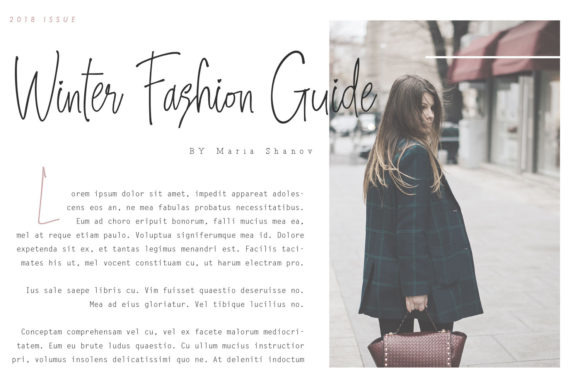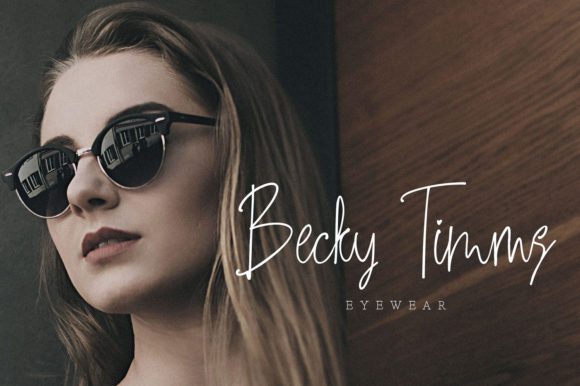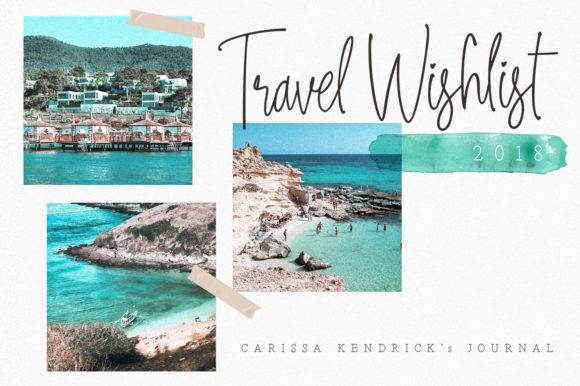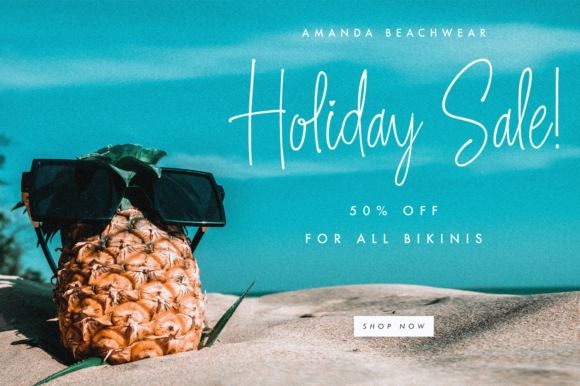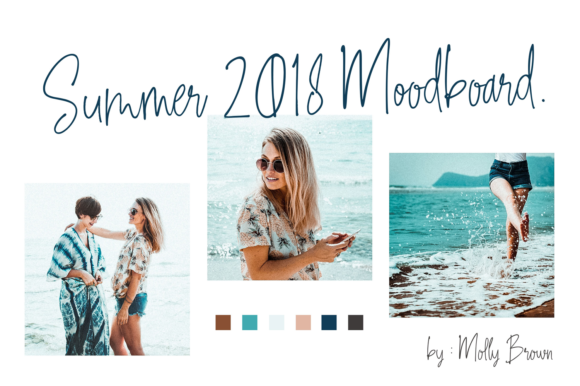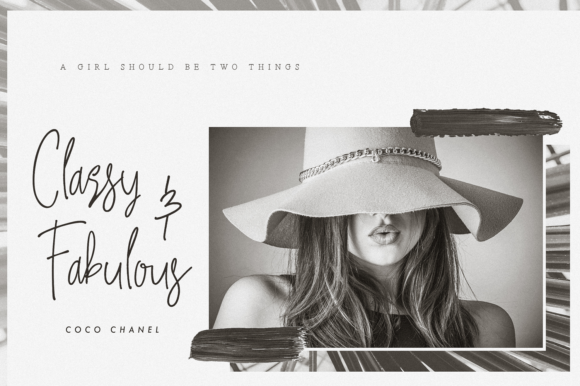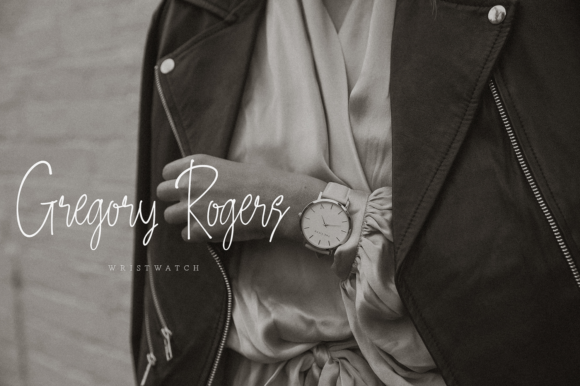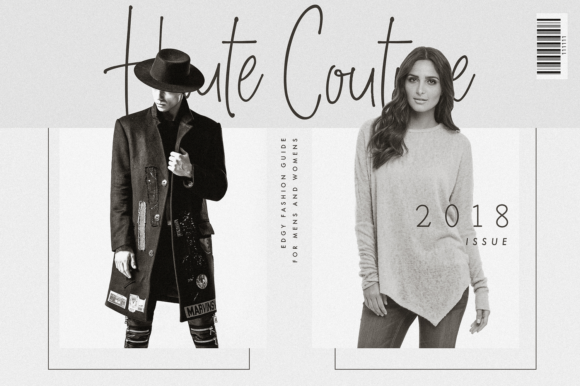
Sweet Getaway Font
About Sweet Getaway Font
Sweet Getaway, handwritten font with the fast stroke and ballpoint feels. Contemporary script style that hits the trends nowadays. It would be a perfect match for branding, logo, fashion stuff, cosmetics, apparel, journal, lookbook, greeting cards, a standout statement, headline, magazine. So versatile, right?